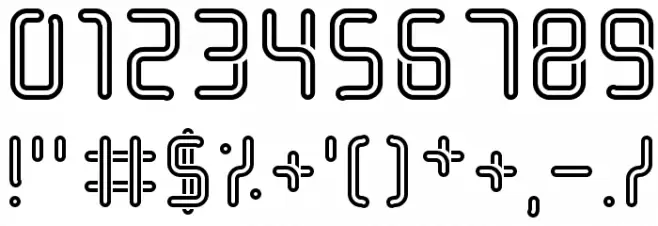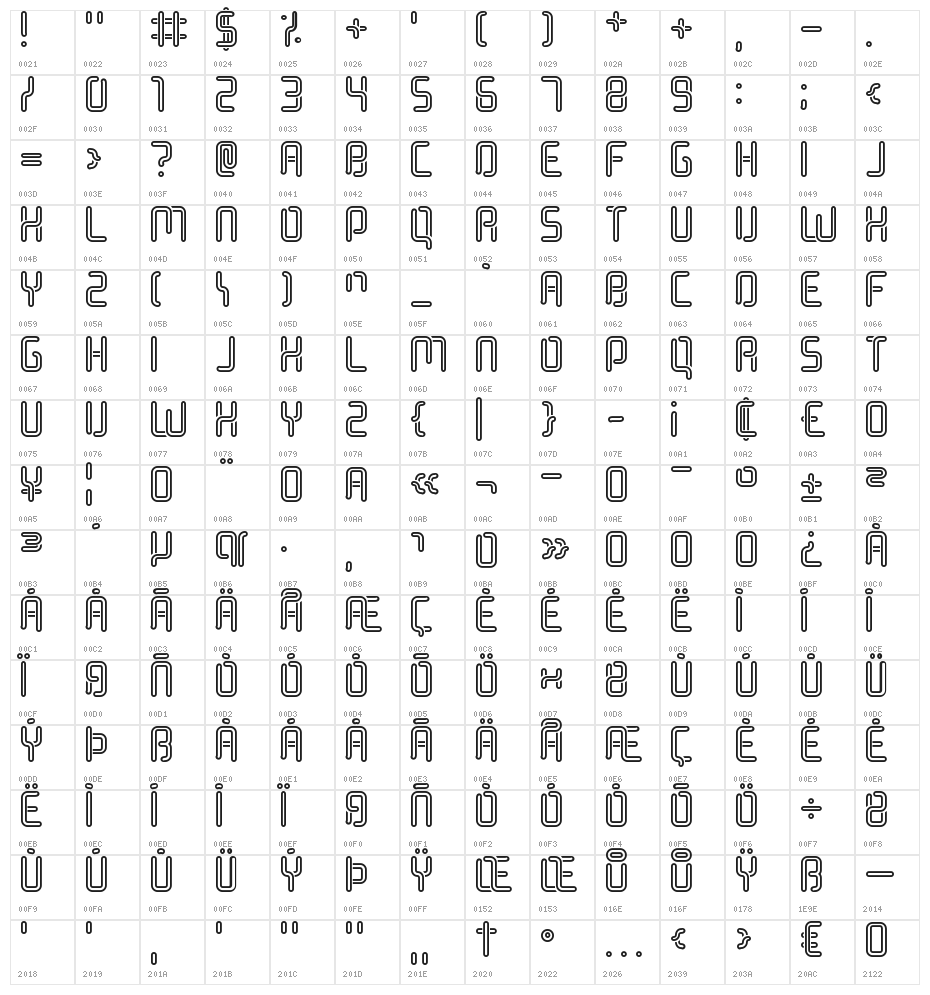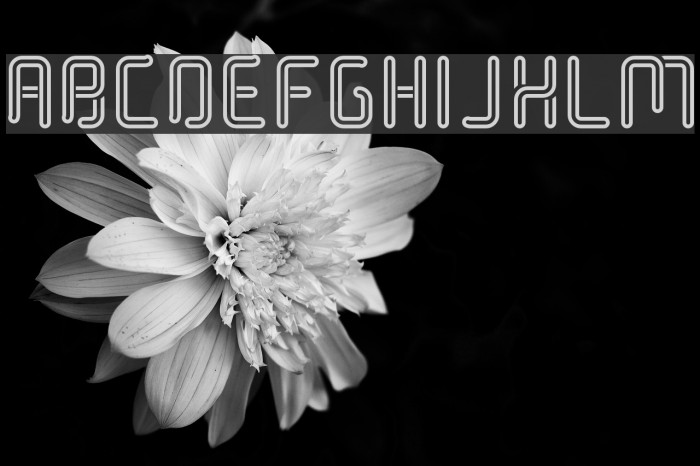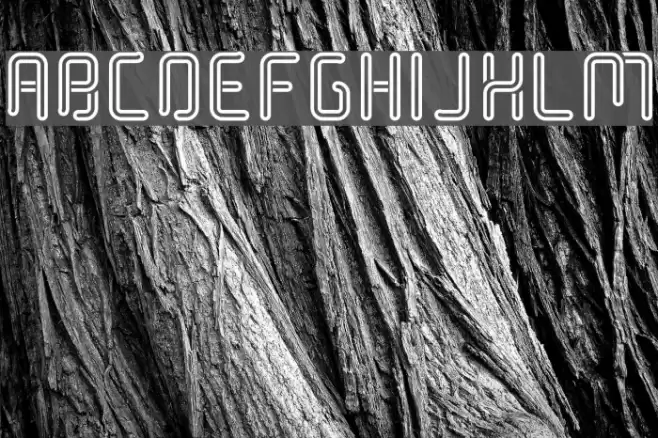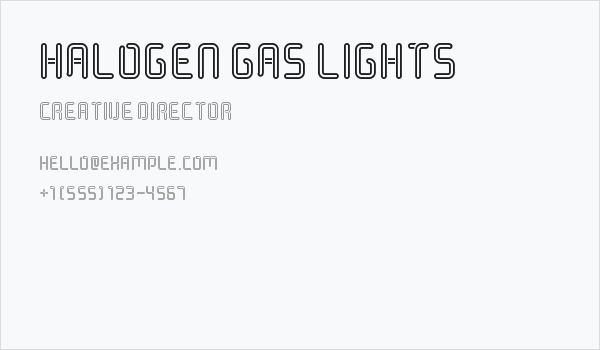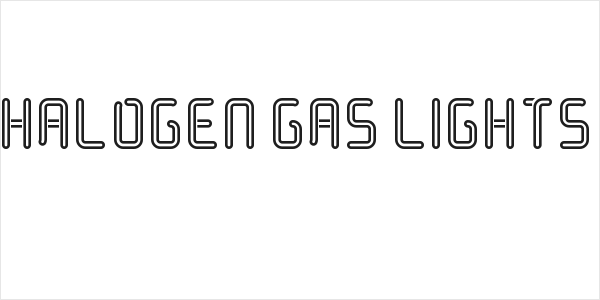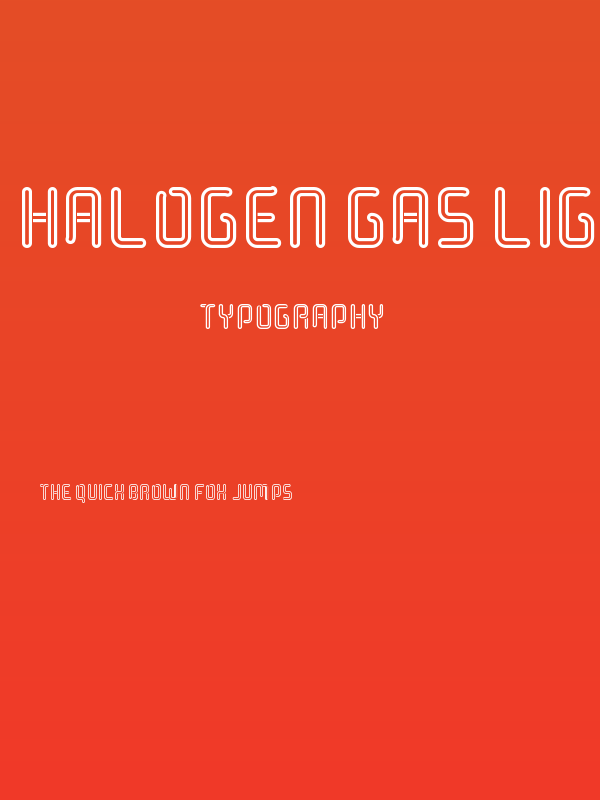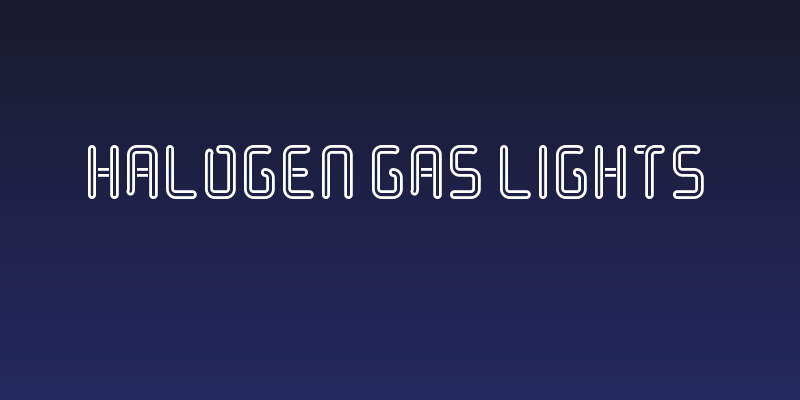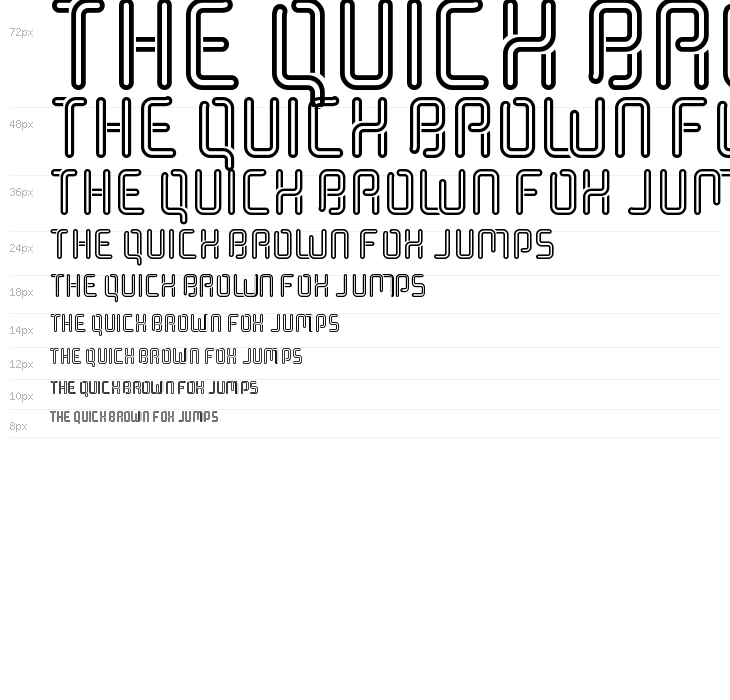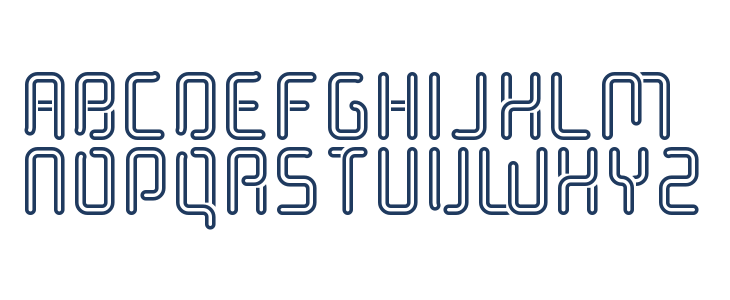
Halogen Gas Lights Font
Halogen Gas Lights Description
This font features a futuristic and geometric design, characterized by its double-line structure that creates a sense of depth and dimension. The characters are uniformly structured with rounded edges, giving a soft yet modern appearance. The uppercase and lowercase letters maintain a consistent style, with a slight variation in height and width that adds visual interest. The numerals and special characters follow the same design principles, ensuring a cohesive look across all elements. This font's unique style makes it ideal for projects that require a modern and tech-savvy aesthetic.
| Proposed Projects | Ideal for tech branding, modern posters, digital interfaces, and futuristic-themed designs. |